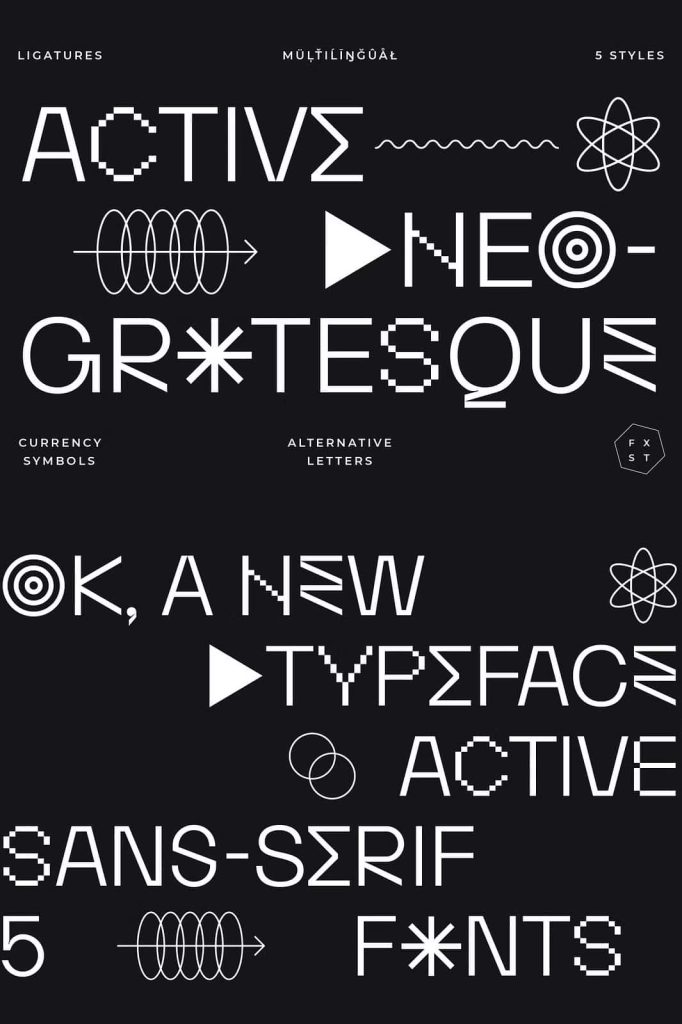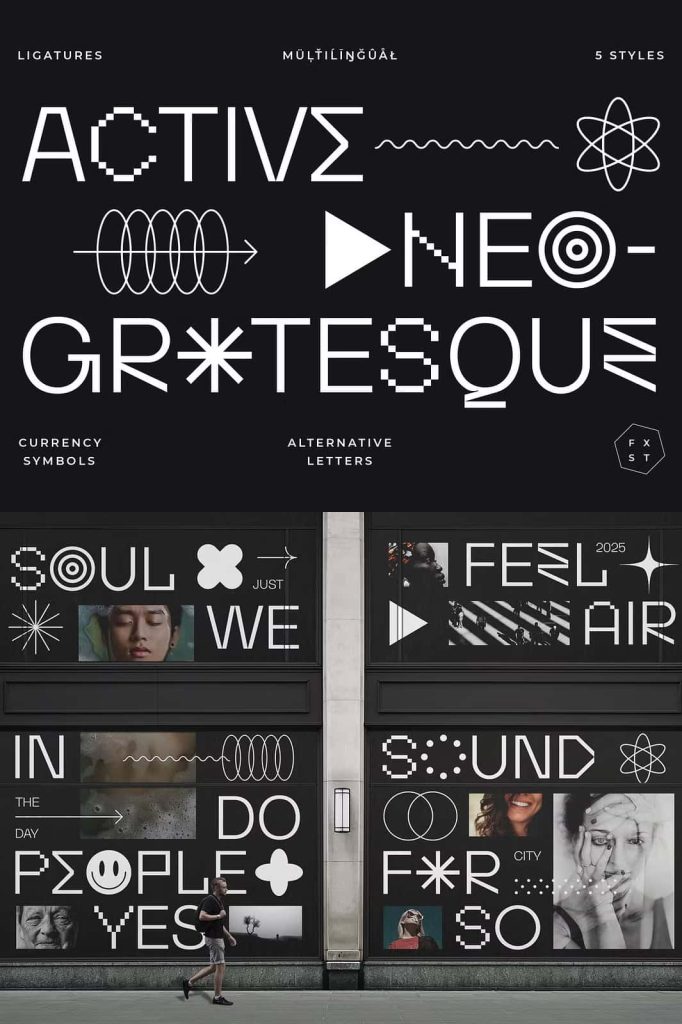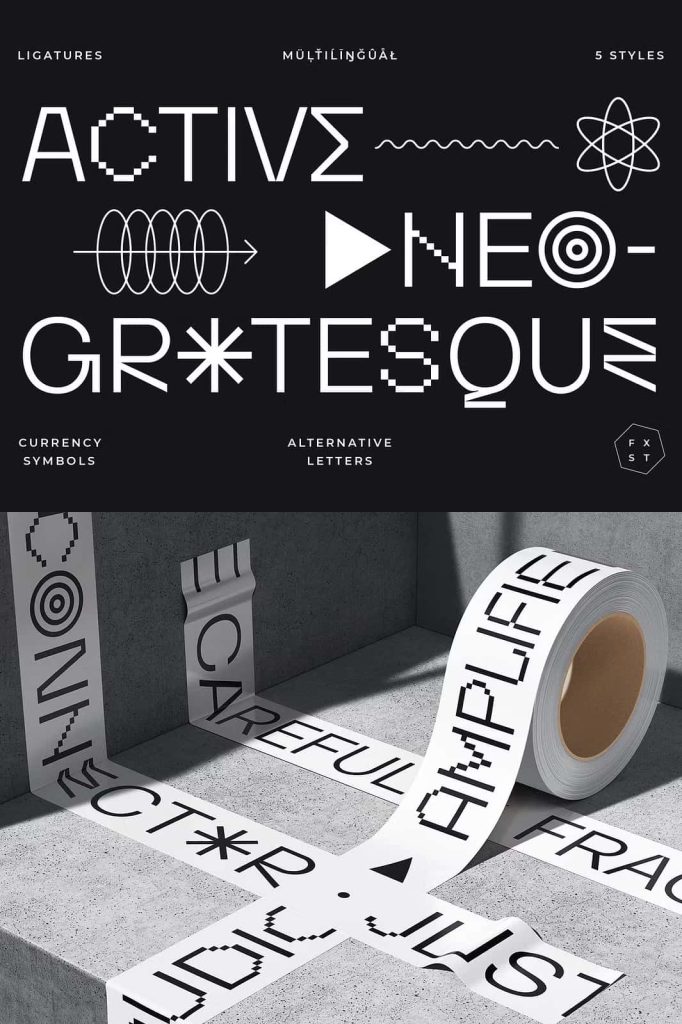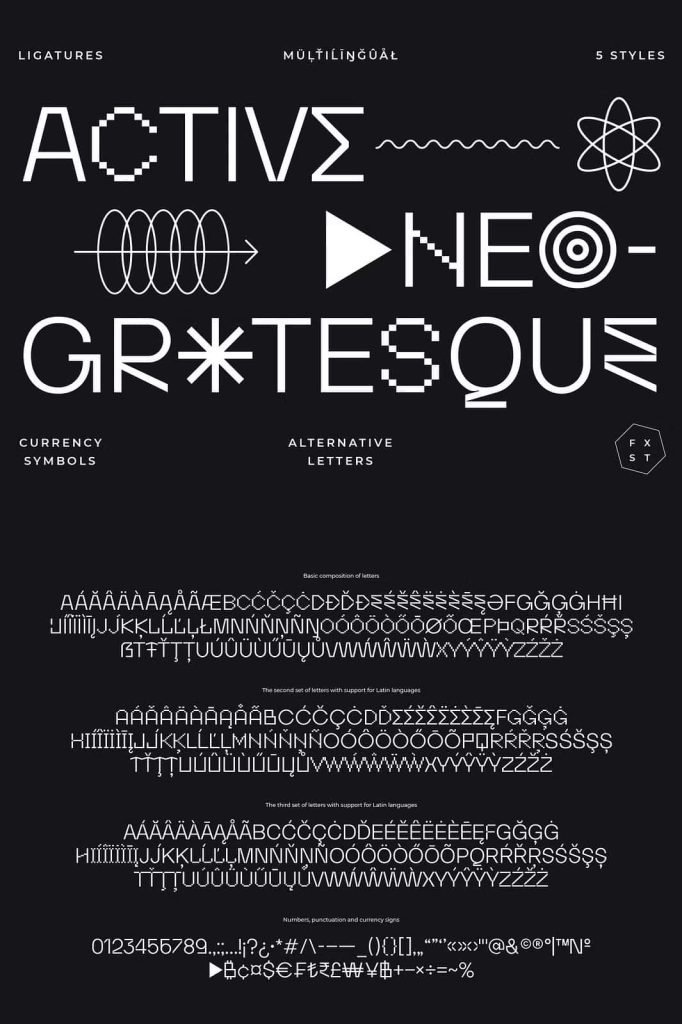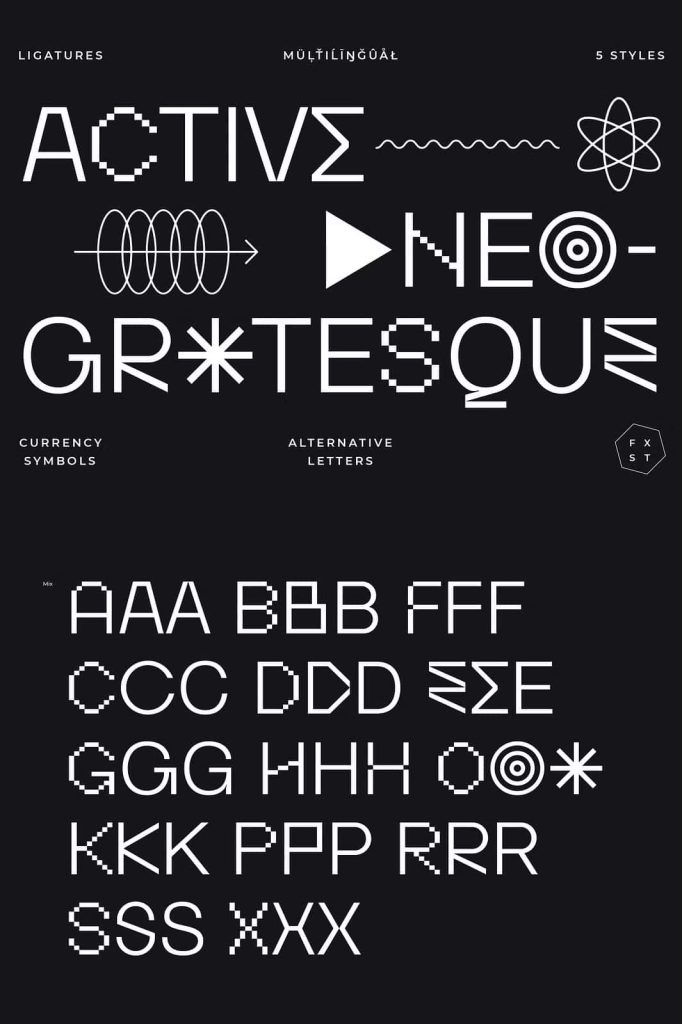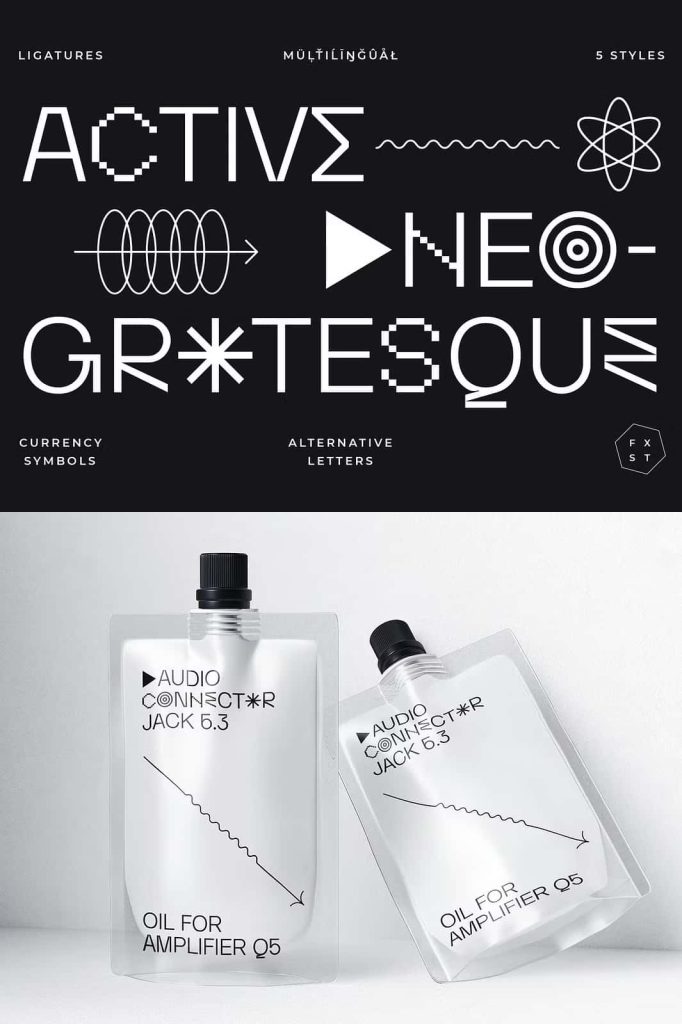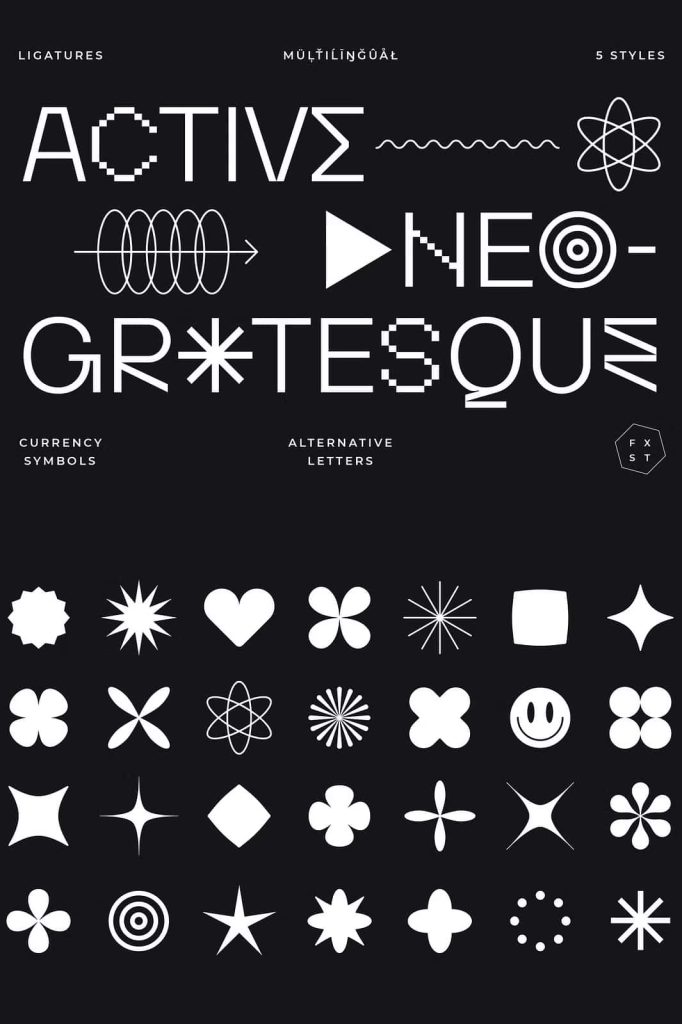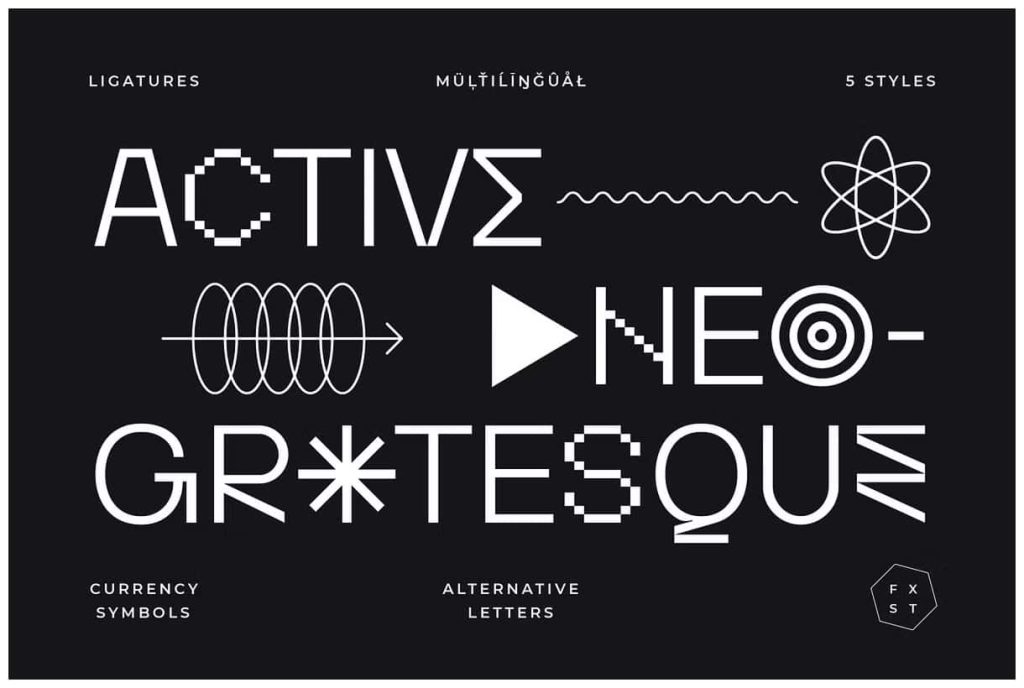
Activica TypefaceleastedMarch 16, 2025Fonts On one hand, this font serves as a calm sans-serif, while on the other, it stands alone as a graphic system Download